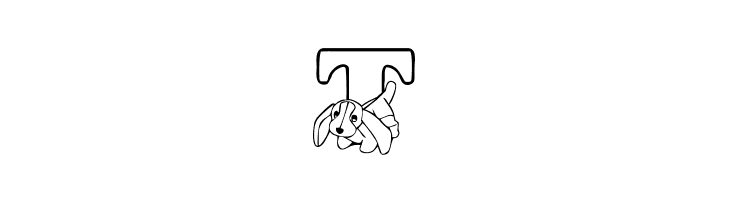
A decorative Halloween-themed font with playful and spooky icons.
Cartoon pirate-themed decorative font with unique illustrations for each character.
A decorative font with seaside-themed illustrations, perfect for nautical designs.
A playful and eclectic collection of bold, whimsical symbols with a street art vibe.
A decorative set of symbols inspired by ancient Greek art and mythology.
A decorative uncial script with intricate animal motifs and mythical embellishments.
A playful font with bold letters and charming animal illustrations.
A whimsical, fantasy-themed font with imaginative, decorative characters.
A bold, detailed set of medieval and fantasy-themed icons.
Highly detailed dinosaur silhouettes replace standard characters.